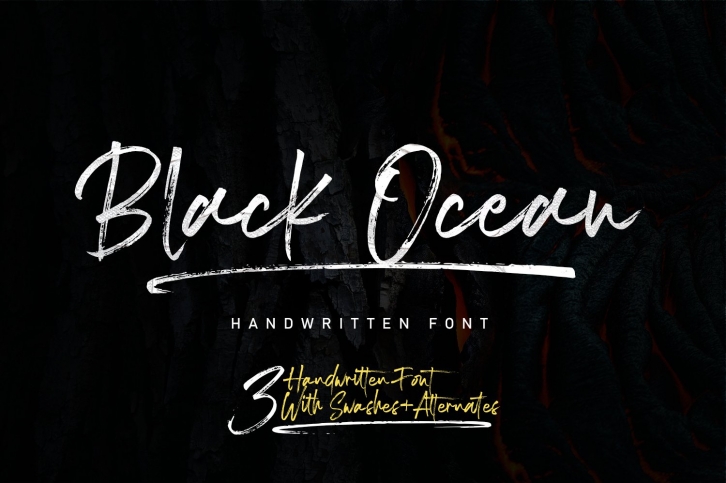
Introducing Black Ocean!!
Handwritten font with quick dry strokes and a signature style. perfect for branding projects, home ware designs, product packaging or simply as a stylish text overlay to any background image or posters.
Alternates !
Black Ocean has an entire alternate glyph set. This is accessible simply by their own separate font file - just install this as normal and select 'Black Ocean one' , ‘Black Ocean Two','Black Ocean Three' or ‘Black Ocean Swash’ in your text-tool
Black Ocean one -A handwritten script font containing upper & lowercase characters, numerals and a large range of punctuation.
Black Ocean Two -The second version of Black Ocean, with a completely new set of both lower and uppercase characters.
Black Ocean Three -The third version of Black Ocean, with a completely new set of both lower and uppercase characters.
Black Ocean Swash -A set of 26 hand-drawn swashes, with cool touch to underline you’re Black Ocean text.